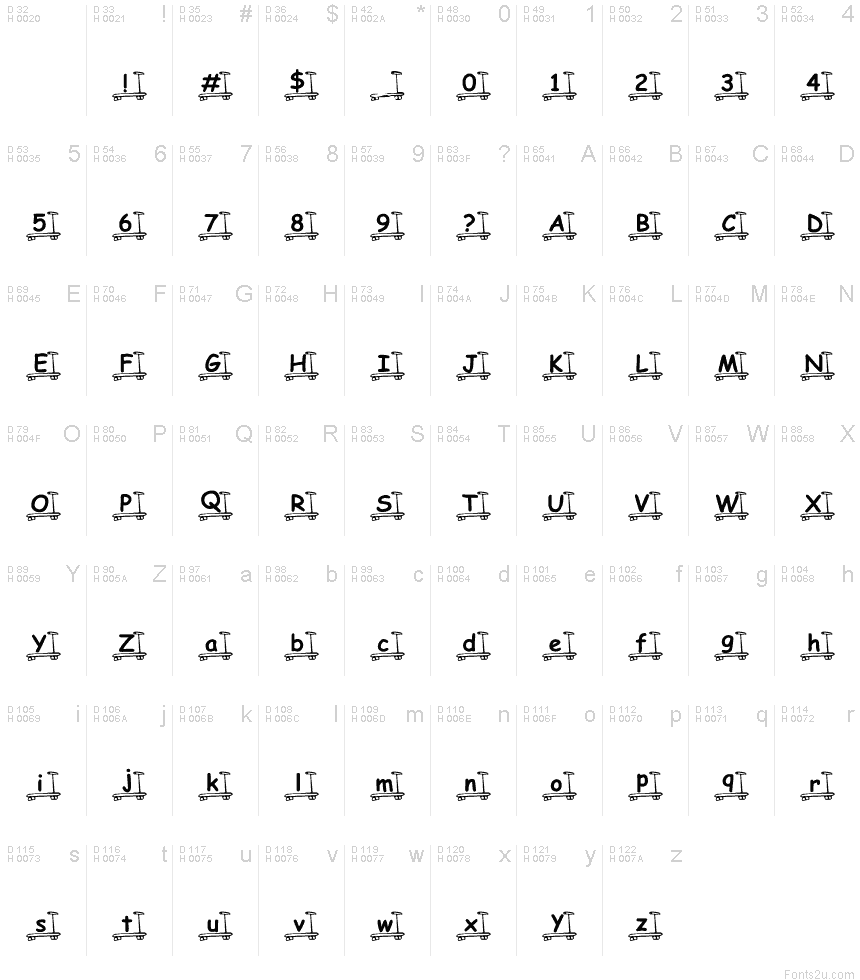
KR Skooter
KR Skooter by Katsfunfonts is a free scooter-themed display font that turns each character into part of a standing kick scooter. The repeated wheels, deck, and upright handlebar give the lettering a rolling silhouette, so the set reads less like ordinary decorative type and more like a coordinated line of playful street graphics.
That makes it a natural choice for kids' party invitations, skate shop flyers, camp posters, birthday shirts, and scrapbook titles where the scooter motif can do some of the talking. Short headlines and name labels especially benefit, since the little deck-and-wheel structure keeps the theme obvious even when only a few letters are used.